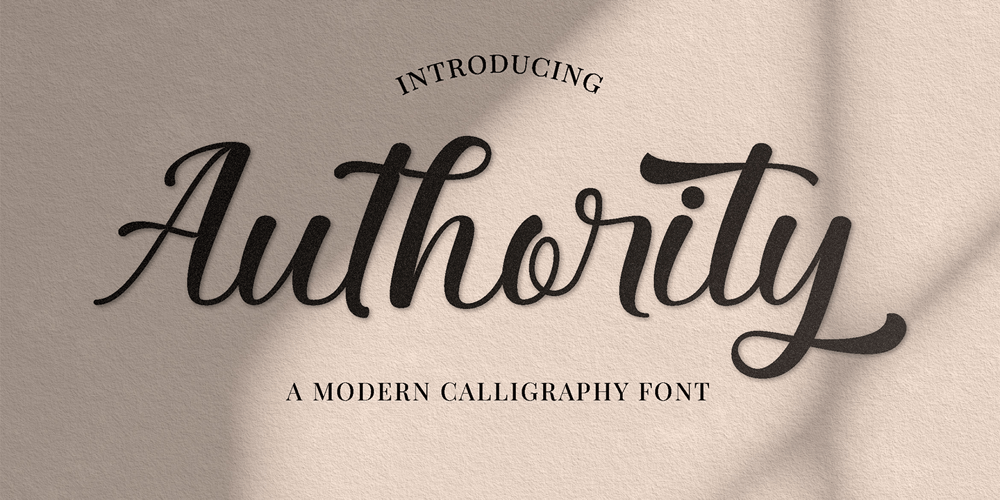
Authority
Authority font
Authority Font Family was designed by Muhamad Junaid and published by Juncreative. Authority contains 1 styles and family package options. Authority i a script elegant font, handwrittien perfect for your projects. It has lots of alternate characters that you can find in the glyphs panel. This font is suited for branding projects, as well as packaging.FEATURESAlternate CharactersUppercase and Lowercase lettersNumbering and PunctuationsMultilingual SupportWorks on PC or MacSimple InstallationSupport Adobe Illustrator, Adobe Photoshop, Adobe InDesign, also works on Microsoft Word